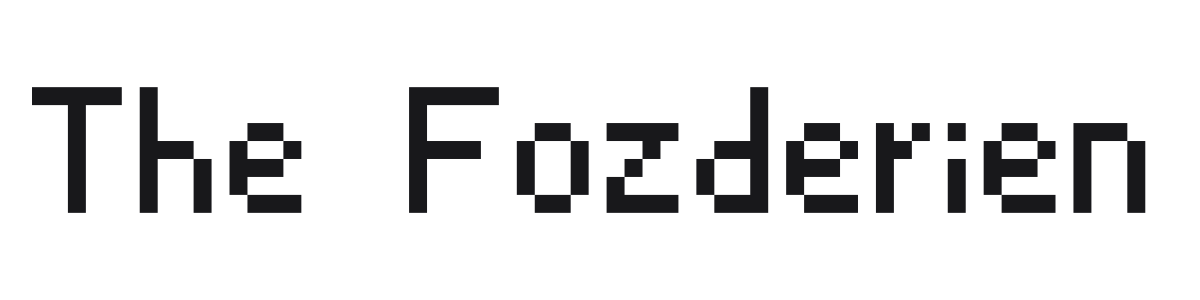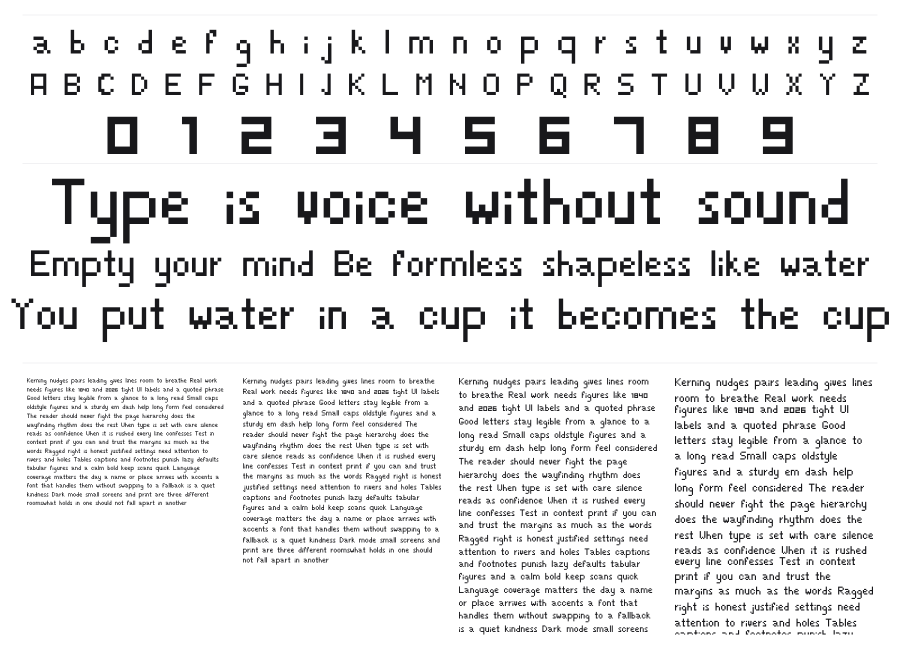
The Fozderien
by Matěj Hofman
The Fozderien is a bold bitmap pixel font built on a coarse square grid with chunky, uniform strokes. It carries the unmistakable energy of early home computing and arcade games, but has just enough irregularity in its construction to feel handmade rather than mechanical. Works best at display sizes where the pixel structure reads as a deliberate aesthetic.